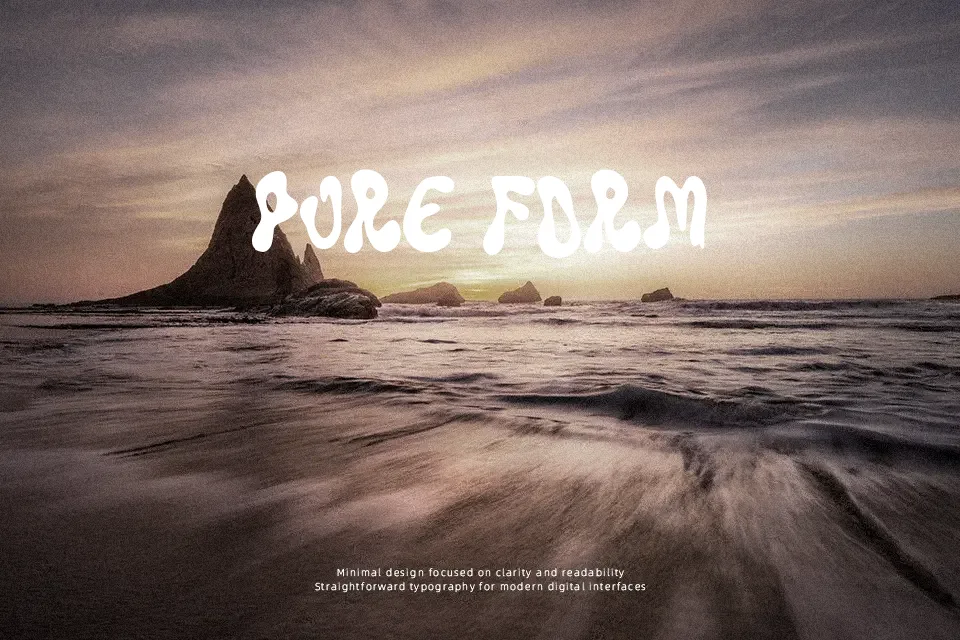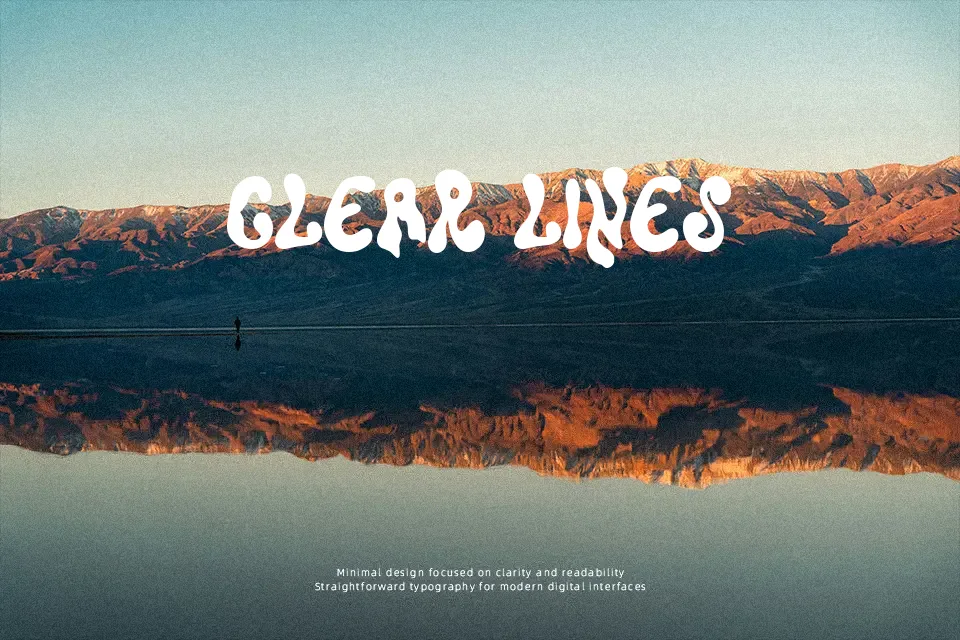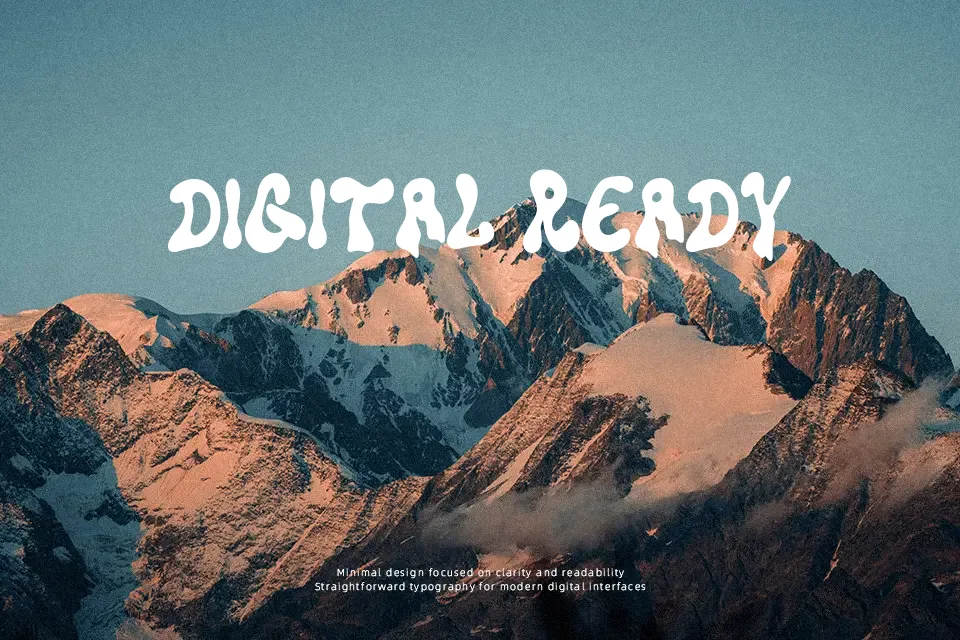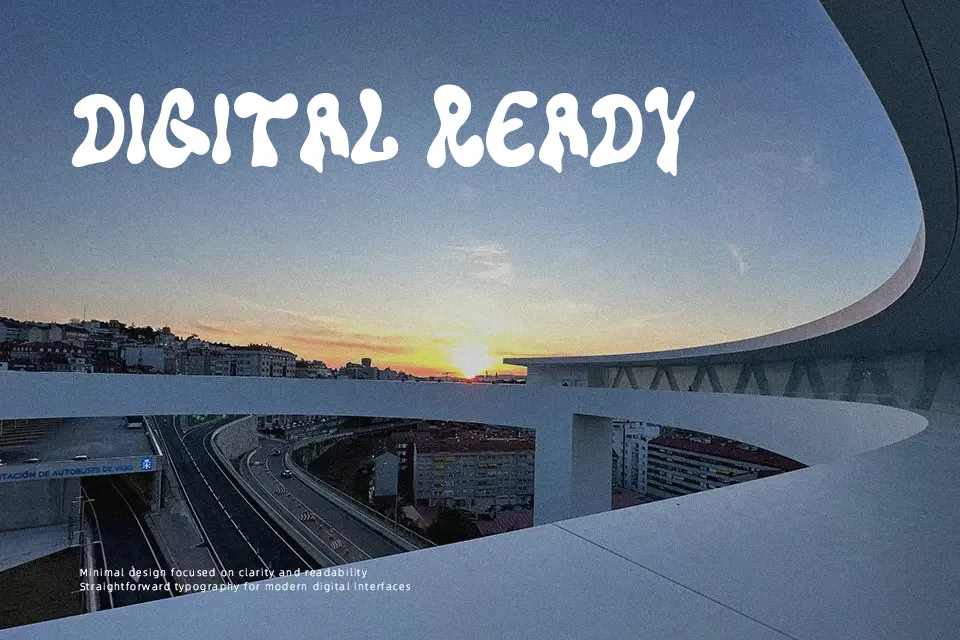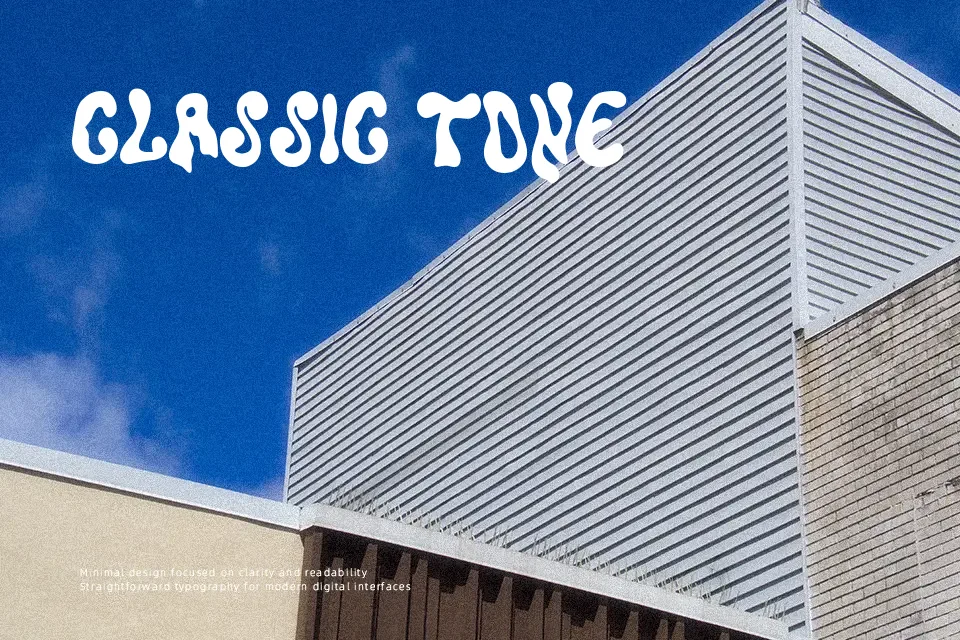
Super Liquida Font
Super Liquida Font uses thick, rounded display letterforms with flowing curves, bulbous proportions, and an intentionally playful silhouette. The strokes appear broadly even in weight, while the compact internal spaces and soft contours give words a dense, animated rhythm. It reads most clearly in large headlines, short names, and isolated phrases, where its unusual shapes can remain distinct. The spacing helps create a unified display texture rather than a conventional text setting. In practical use, the letterforms have enough visual presence for posters and packaging, but their decorative construction becomes harder to scan in small sizes or extended copy.
Best For: music festival posters,retro product packaging,apparel graphics,social media headlines
Perfect for logo, music, and packaging, with a bold and decorative style.